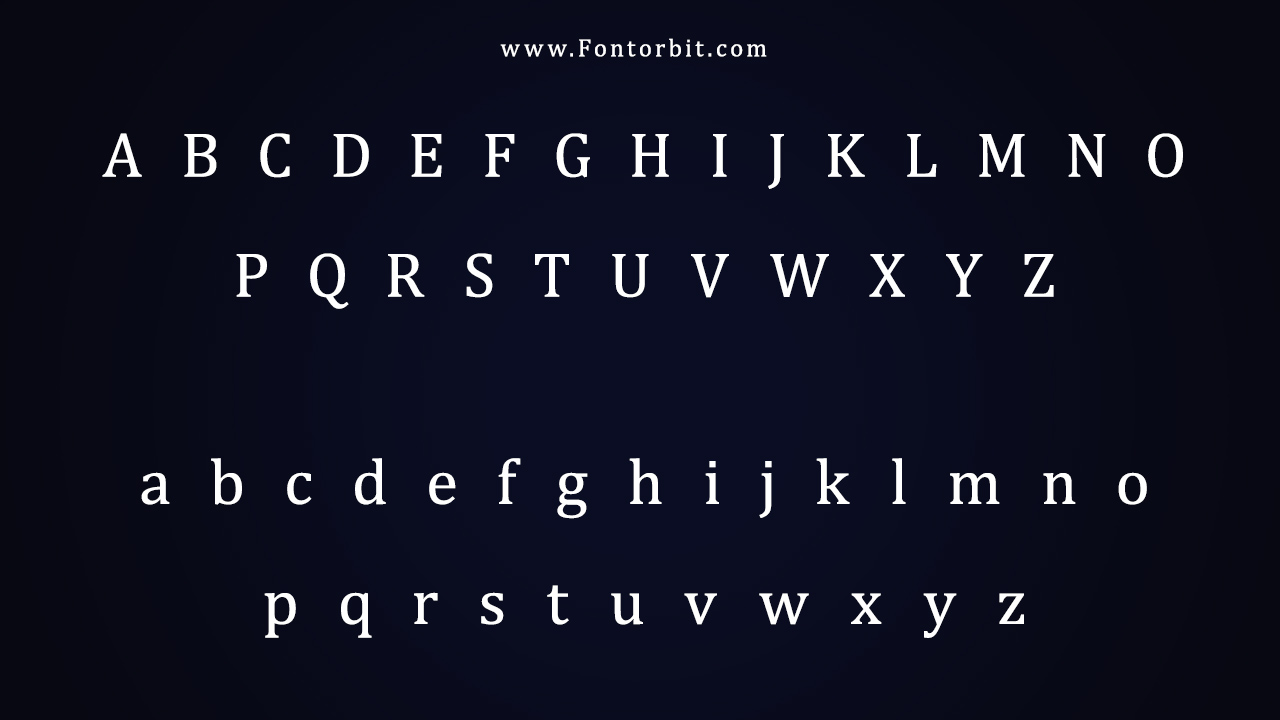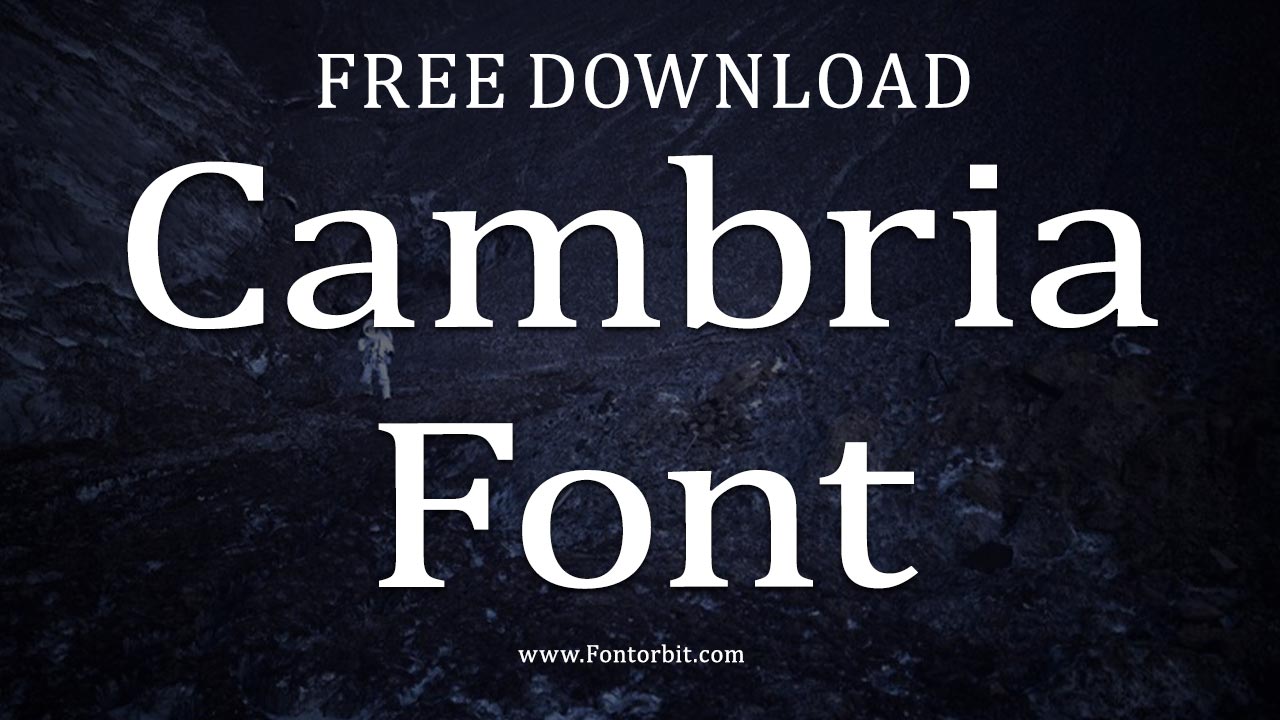
Cambria is a popular serif typeface designed by Dutch designer Jelle Bosma in 2004. This elegant font was designed primarily for on-screen reading and is known for its legibility in both small and large sizes.
Cambria is part of the ClearType Font Collection, created to improve the clarity of text on LCD monitors. It works well in print and digital formats as a versatile serif typeface.
Cambria Font Family Includes
The Cambria font family comes in various styles, each suitable for various uses. Known for its clarity and readability, it supports extensive typographic features, making it a reliable choice for professional and personal projects. The Cambria Font Family includes:
- Cambria Regular
- Cambria Bold
- Cambria Bold Italic
- Cambria Italic
Notable Uses Of Cambria
Cambria is widely used in corporate documents, academic papers, and various digital environments. Its readability makes it popular for text-heavy documents, including legal documents, proposals, and reports. Its formal yet approachable design suits it for official presentations and website body text.
- Corporate documents such as reports and proposals
- Academic writing (papers, theses, etc.)
- Legal documents
- Website body text
- PowerPoint presentations
- E-books
Cambria is highly versatile and can be used in print and digital formats. It is best suited for situations where readability is essential, such as:
- Long-form content like books and reports
- Business documents requiring a professional appearance
- Digital media, such as blogs or websites, need a clean, formal look
- PowerPoint slides and other professional presentations
Cambria is a reliable typeface that combines readability with a classic serif design. It excels in professional and academic settings, providing a clean and clear reading experience. Whether you’re preparing a report, designing a website, or creating a presentation, Cambria is a great choice. It stands out for its versatility, making it suitable for both on-screen and printed materials.
1.What Type Of Font Is Cambria?
Cambria is a serif font.
3.Is Cambria Good For Body Text?
Yes, Cambria is well-suited for body text due to its readability.
4.Can I Use Cambria On Websites?
Yes, Cambria works well on websites and other digital formats.
5.What Makes Cambria Different From Times New Roman?
Cambria is optimized for on-screen readability, while Times New Roman is more suited for print.
7.Can Cambria Be Used For Headings?
Yes, Cambria works well for both headings and body text.